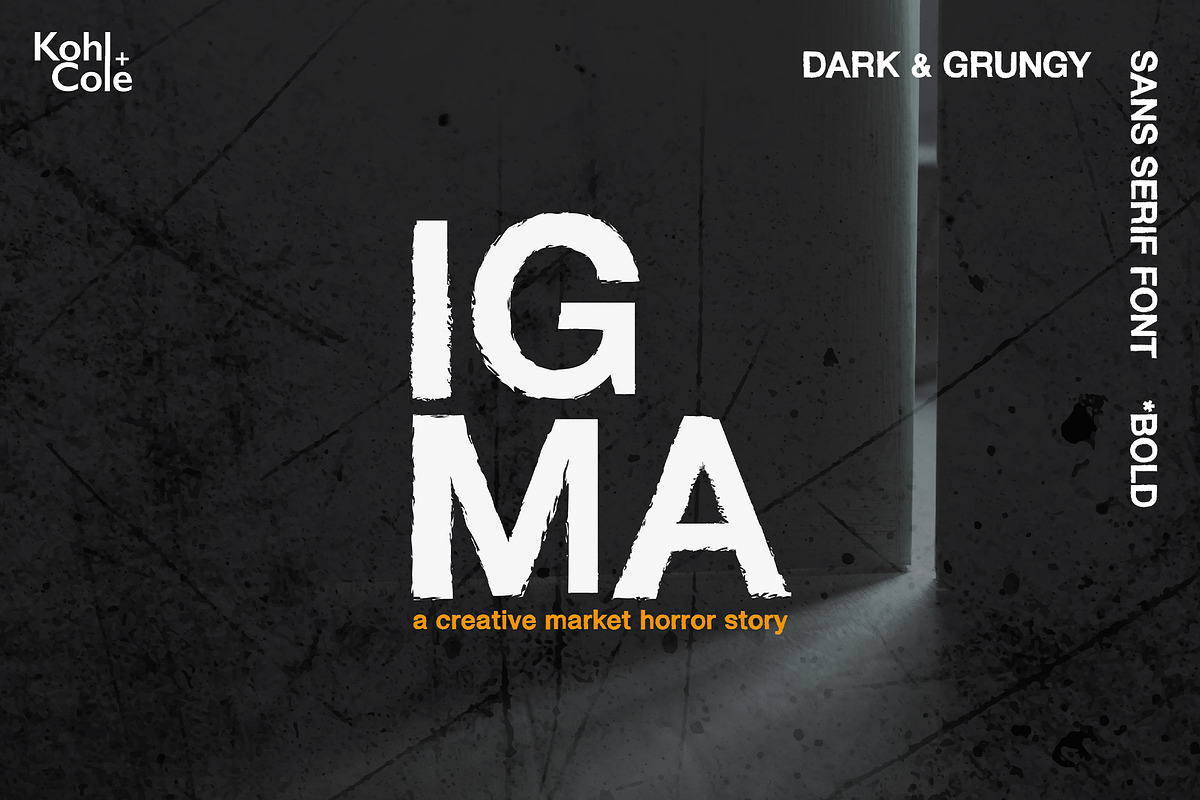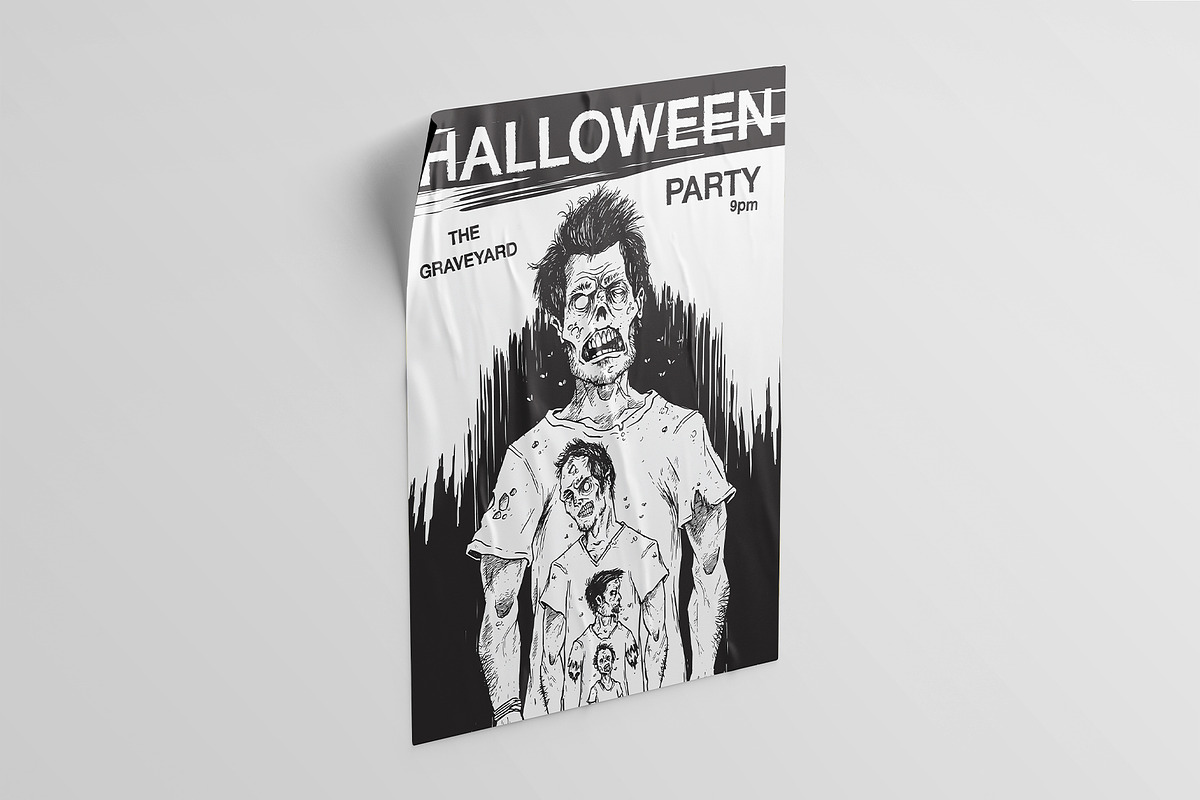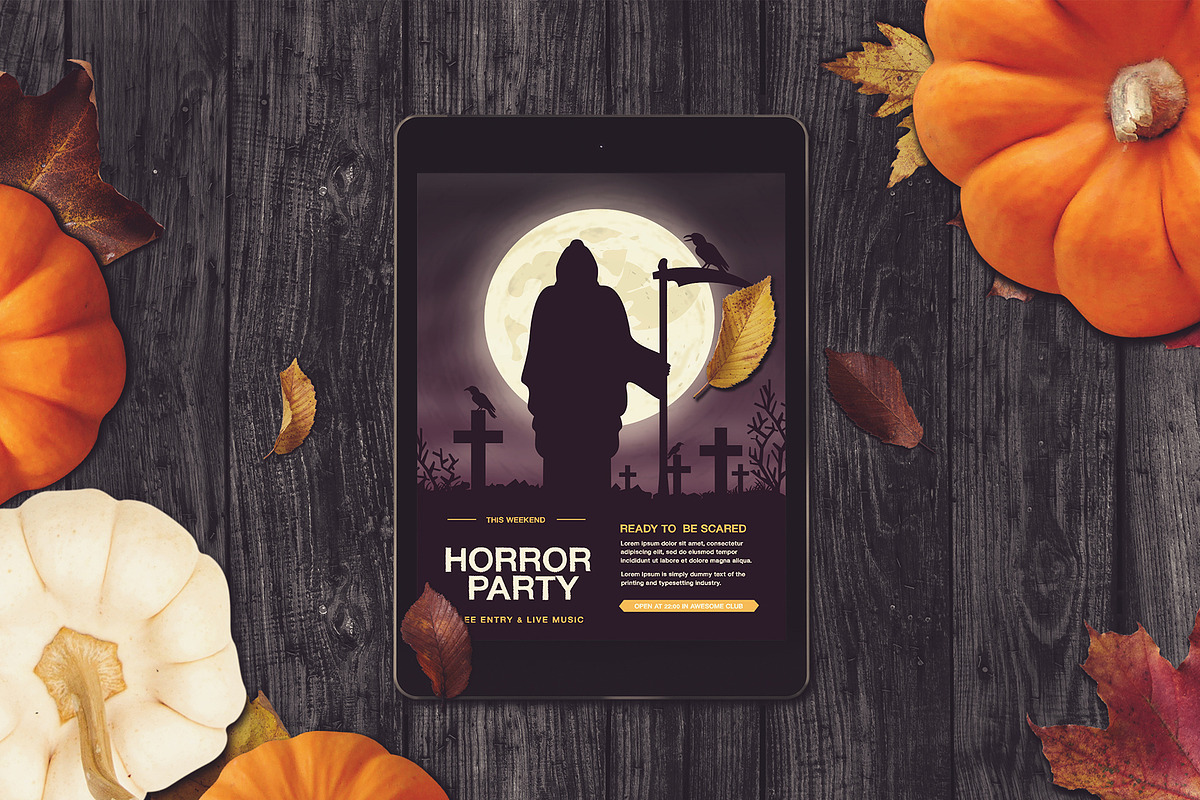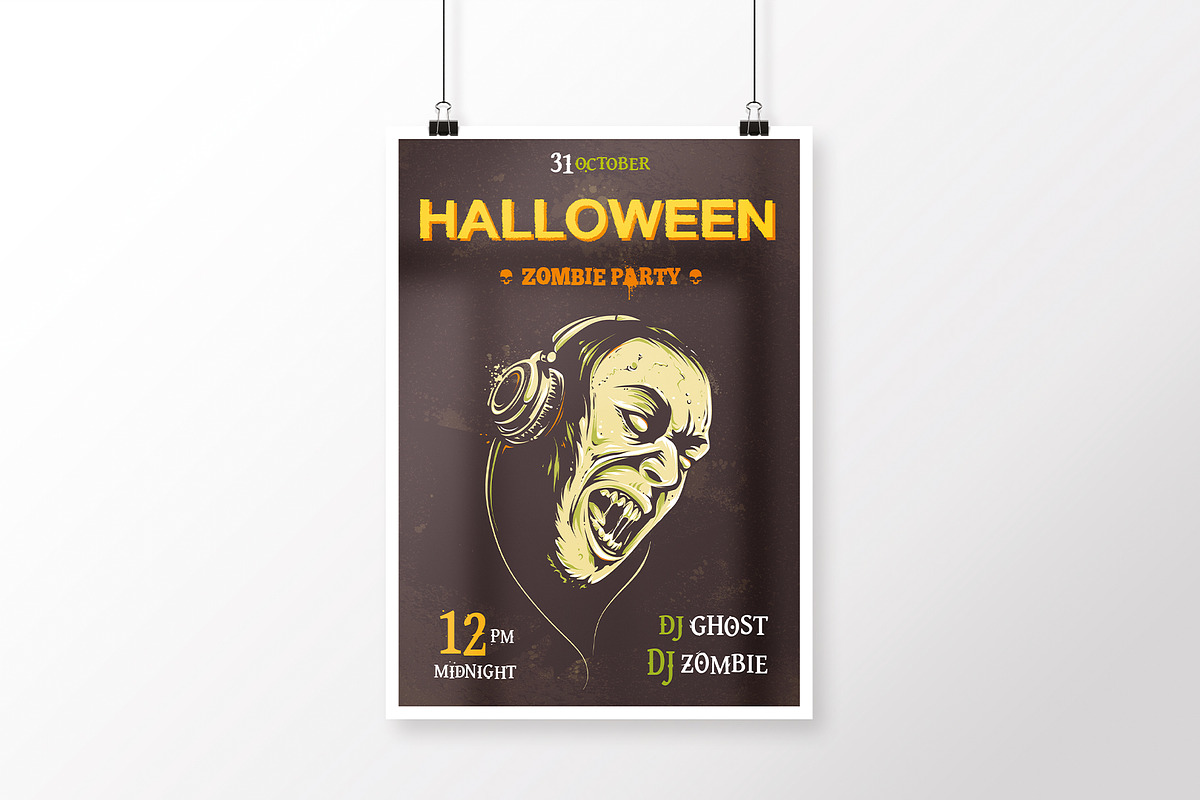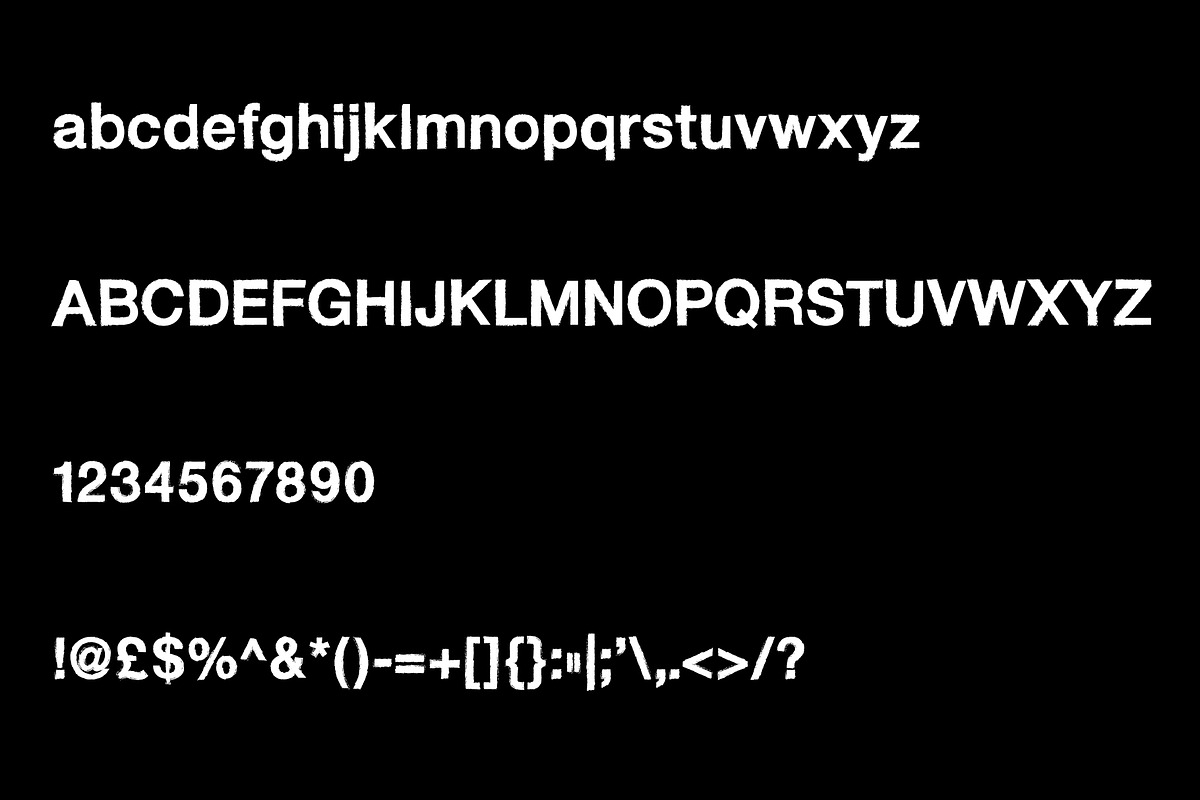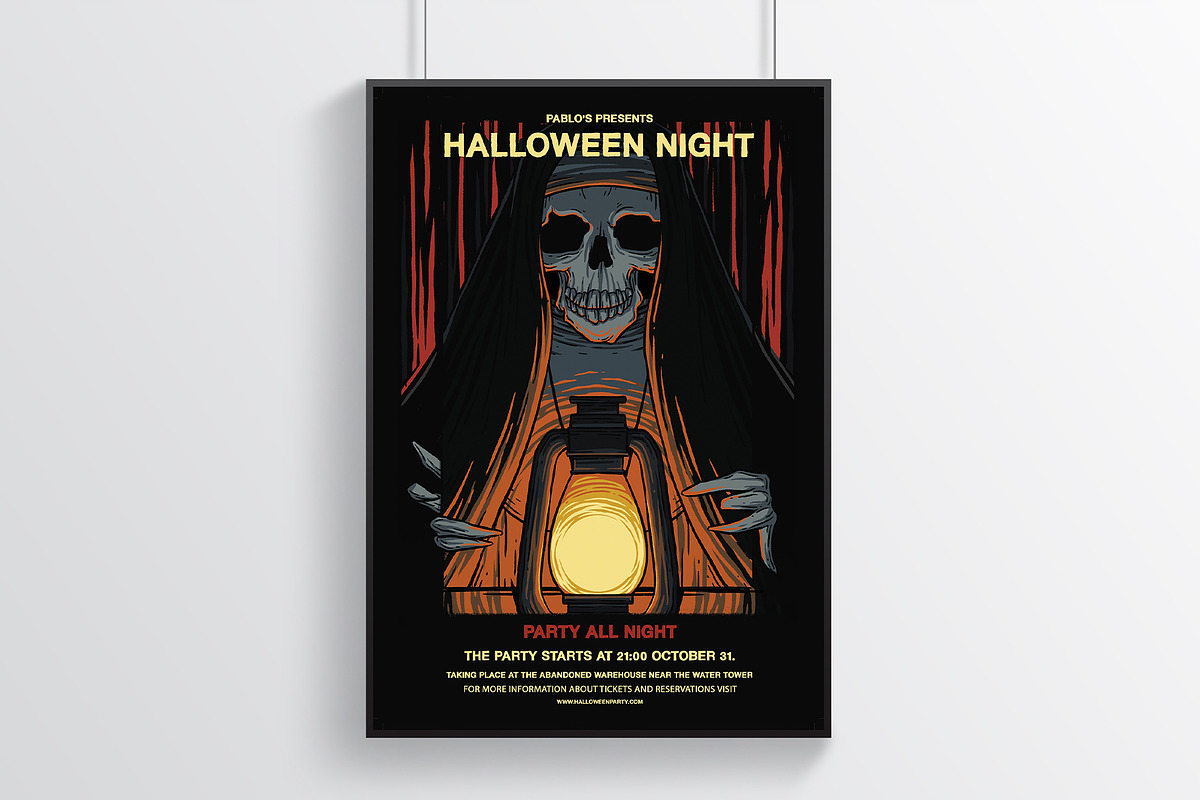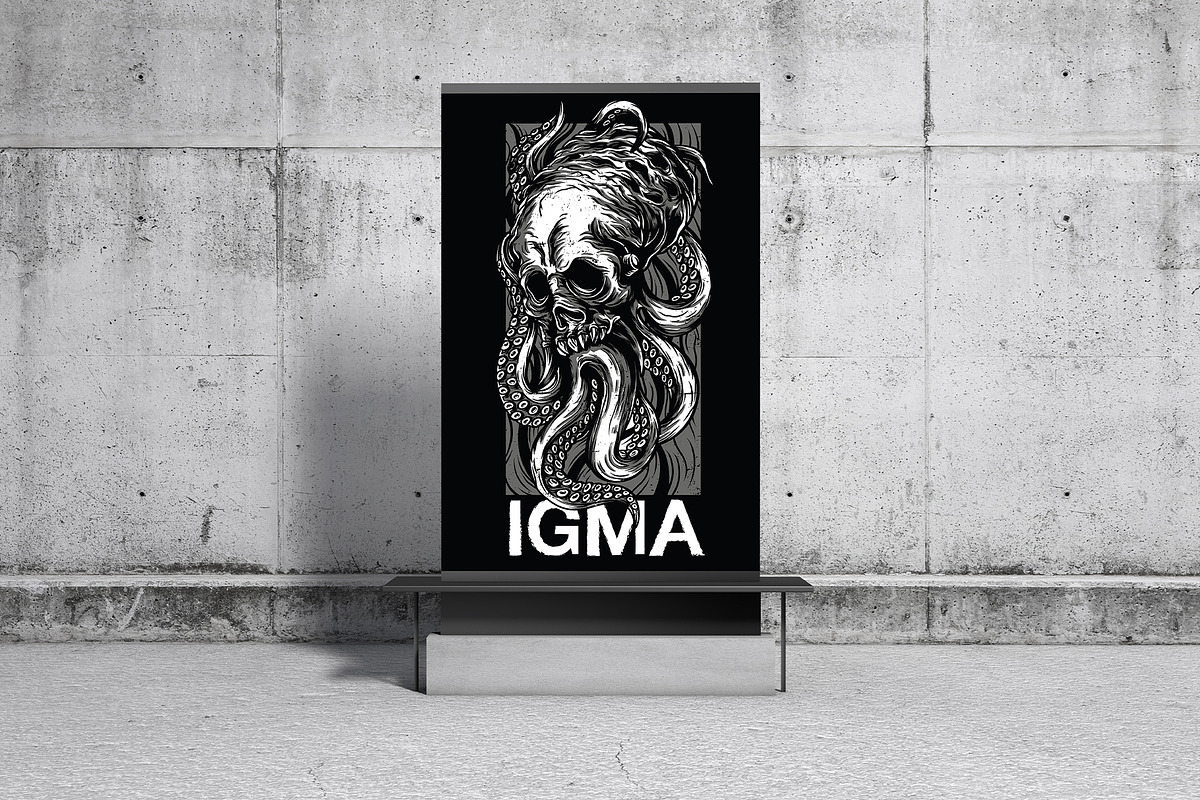
IGMA Bold - Dark & Grungy Font
IGMA Bold is a Dark, Grungy, Scary, Sans Serif Font.
IGMA is perfect for adding spooky drama to your designs. The rough eerie texture of the font builds suspense and discomfort-into designs, perfect for scary horror designs. With Halloween just around the corner, this could be the just the font for your next spooky projects!
A part of the IGMA Font Family